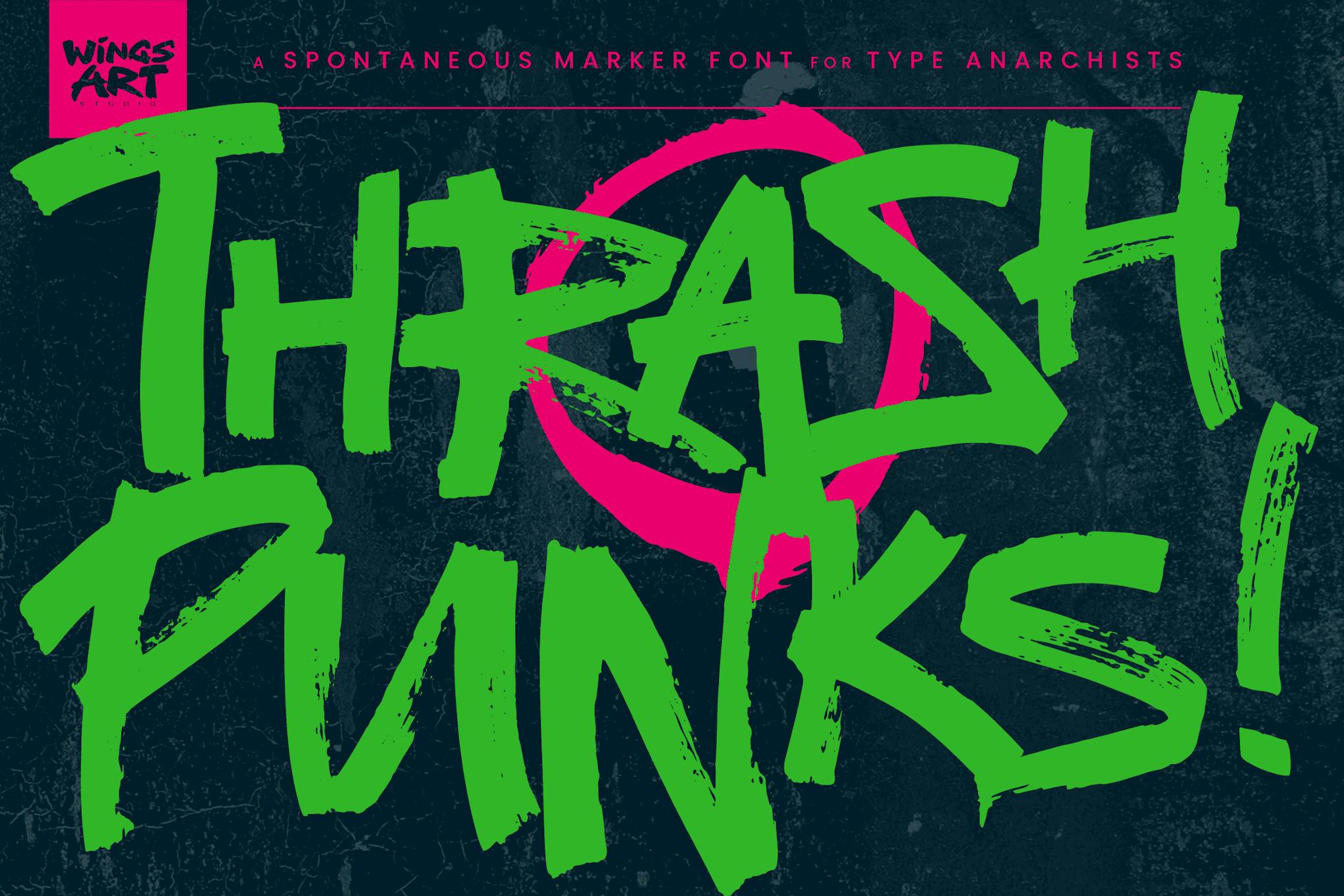
Thrash Punks- A Spontaneous Marker Font
Thrash Punks A Spontaneous Marker Font erupts across punk rock concert posters, underground music venue signage, anarchist zine publications, skateboard deck graphics, hardcore band merchandise, DIY show flyers, protest sign designs, underground club branding, punk fashion labels, alternative music festival graphics, rebellious youth campaigns, and countercultural marketing materials where raw energy and spontaneous rebellion create authentic underground cultural statements.
This explosive typeface generates excitement through its perfect capture of punk rock spontaneity and marker-drawn rebellion that creates typography with unfiltered energy and authentic underground credibility. Thrash Punks A Spontaneous Marker Font embodies the raw essence of punk culture with its aggressive, hand-drawn letterforms that reflect the spontaneous creativity and rebellious spirit of underground music scenes. The font's authentic design approach incorporates marker stroke irregularities, aggressive angles, and organic imperfections that mirror genuine DIY artistic expression and punk rock aesthetic principles. Its distinctive character conveys the urgency, independence, and anti-establishment values that define authentic punk culture and underground artistic movements.
The Thrash Punks A Spontaneous Marker Font family includes multiple rebellious variations such as Regular, Bold, Light, Distressed, and Chaos versions, each maintaining the font's characteristic punk authenticity while offering different levels of aggressive impact. The collection features marker stroke textures, punk-inspired distortions, anarchist symbols, and DIY decorative elements that enhance its underground credibility. Additional elements include paint splatters, torn paper effects, safety pin decorations, and punk culture ornaments that reinforce the font's connection to authentic thrash and punk rock movements.
Underground designers and punk culture brands consistently select Thrash Punks A Spontaneous Marker Font Free Download for projects requiring typography that communicates genuine rebellion and countercultural authenticity. This remarkable typeface excels in applications where establishing underground credibility and connecting with alternative culture communities are essential for brand relevance. The font's spontaneous marker qualities make it particularly effective for music labels, underground venues, and alternative brands targeting audiences who value authentic rebellion and DIY artistic expression.
Whether you're designing punk rock merchandise, creating underground music promotions, developing alternative culture campaigns, or building authentic countercultural projects, Thrash Punks A Spontaneous Marker Font delivers unmatched punk authenticity. Its ability to convey rebellion, spontaneity, and underground credibility makes it invaluable for brands seeking to connect with punk and alternative communities through genuine cultural expression. The font's thrash presence ensures your designs will communicate the raw energy and spontaneous rebellion that define exceptional punk culture and underground artistic communications.